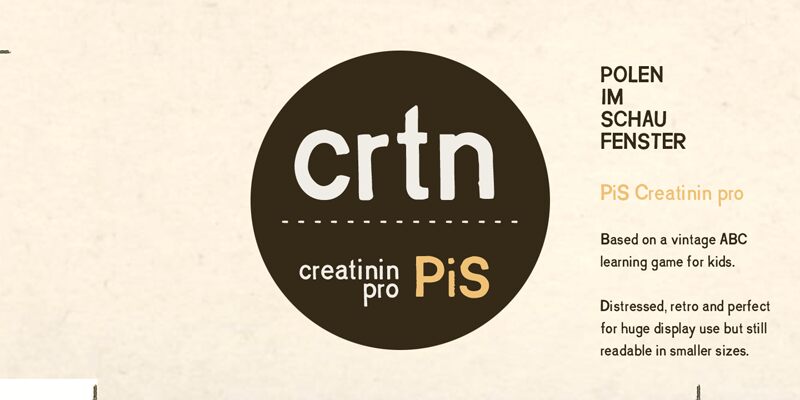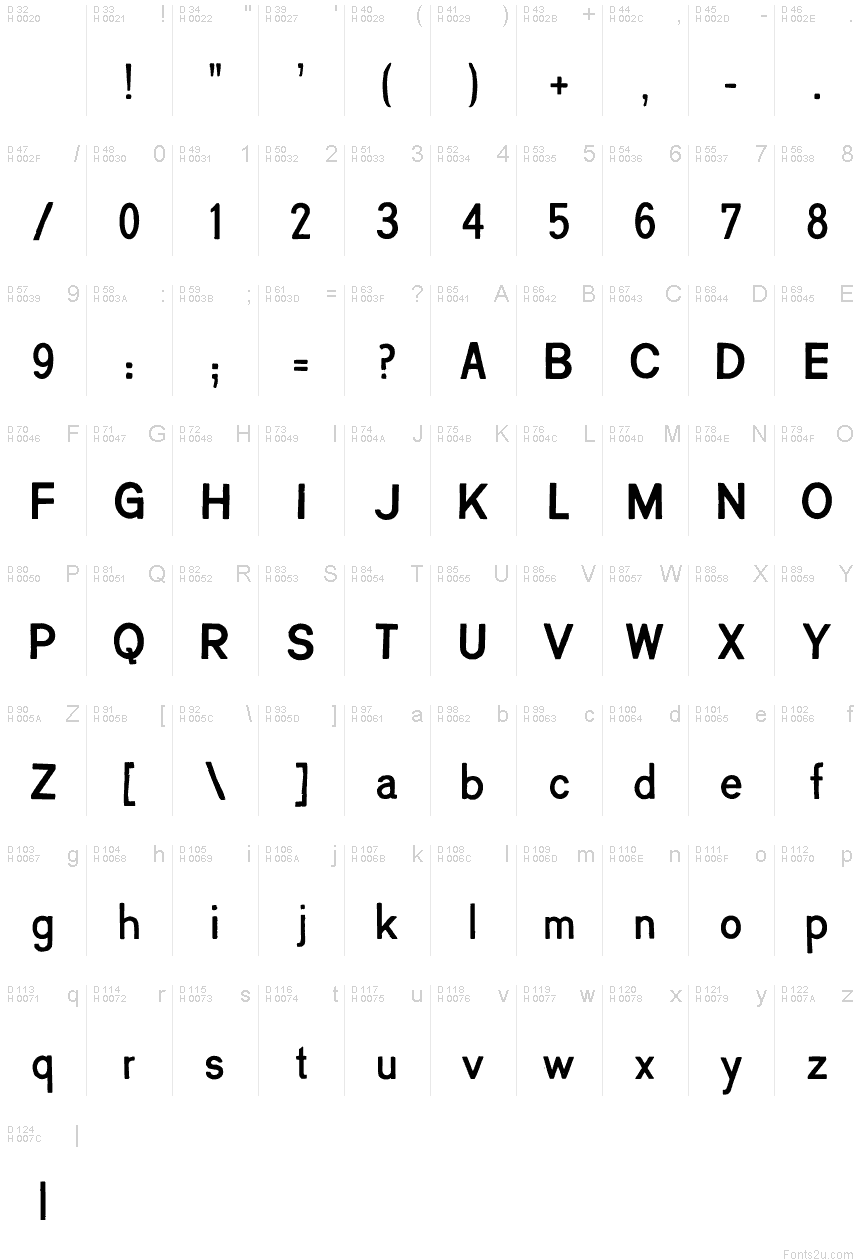
Creatinin PAP
Creatinin, a display font designed by Polenimschaufenster, exudes a captivating, eroded aesthetic. Its bold, angular letterforms convey a rugged, industrial vibe, yet the font retains an underlying elegance. The dramatic, weathered appearance lends itself well to headlines, editorial pieces, and branding applications where a distinct, impactful visual statement is desired.
Creatinin's versatility shines through its ability to seamlessly transition between bold, eye-catching usage and more subtle, complementary roles within design compositions.
An updated version of an old polenimschaufenster classic, based on letters from an old ABC game for kids.